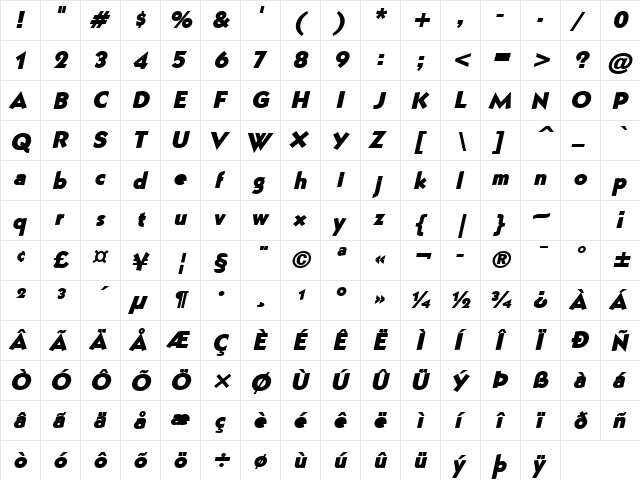
Bully BoldItalic
Design Context for Bully Typeface
Bully is a composed and adaptable typeface that performs quietly and consistently across a wide range of design contexts. The dynamic lean of this cut emphasises speed and emphasis in any layout. Its bold stroke weight gives it real presence on the page.
Pro Tip: Use Bully for emphasis, pull quotes, and subheadings where its slanted energy can add rhythm to the layout.